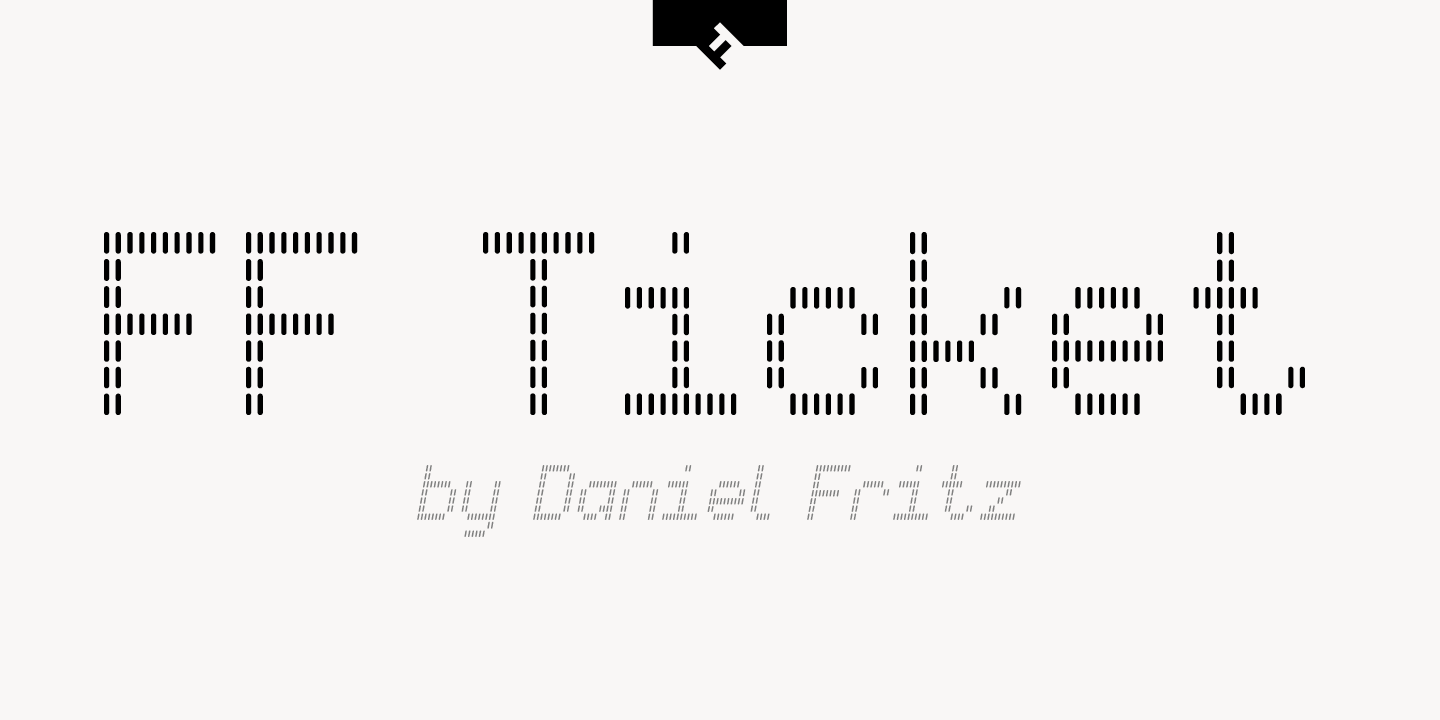
FF Ticket Font is a distinctively functional and wonderfully authentic typeface, perfectly suited for projects that aim to evoke the organized chaos of travel, the excitement of events, and a touch of vintage utility. Imagine it gracing the design of concert tickets, adding a retro yet precise feel to airline boarding passes, or bringing a nostalgic personality to movie stubs and carnival admissions. It's also an excellent choice for crafting unique event branding, designing captivating promotional materials for transportation services, or infusing digital content and social media graphics with a clear, direct, and slightly industrial appeal. If you're looking to convey efficiency, experience, and an undeniable sense of structured activity, FF Ticket Font is an outstanding selection.
What makes FF Ticket Font so exciting? It’s its unique ability to perfectly mimic the practical typography found on real-world tickets and forms, offering a blend of utilitarian clarity and a charming, often condensed aesthetic. This font often features clean, legible letterforms designed for quick information transfer, sometimes with subtle imperfections that give it an authentic, worn-in feel. Despite its functional roots, FF Ticket Font is meticulously designed to maintain excellent readability across various applications, ensuring your message is communicated clearly and with a purposeful tone. Designers will appreciate its versatility in creating designs that feel both pragmatically effective and visually engaging, making it a go-to choice for brands and projects that aim to convey reliability, a sense of occasion, and a touch of vintage flair.
The FF Ticket Font family is typically designed to showcase its unique and impactful aesthetic. While it might primarily feature a strong Regular weight, you could find variations that enhance its utility, such as condensed versions for space-saving layouts, or bold alternatives for emphasis. Some versions might even include slight distressing to amplify the worn ticket look. These variations ensure that FF Ticket Font maintains its cohesive and high-impact visual identity across different design applications, from event schedules to themed website elements. Discover the reliable charm of FF Ticket Font Free Download and infuse your designs with an unforgettable sense of journey and destination.